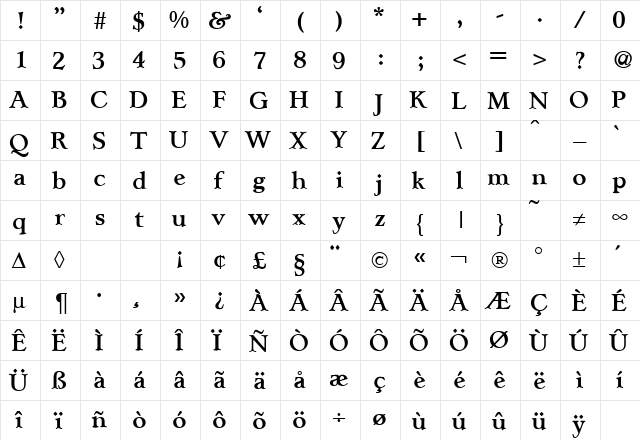
LynchburgMedium Regular
Design Context for LynchburgMedium Typeface
LynchburgMedium takes a measured approach to typography — its balanced proportions and neutral character make it a reliable workhorse for both digital and print work.